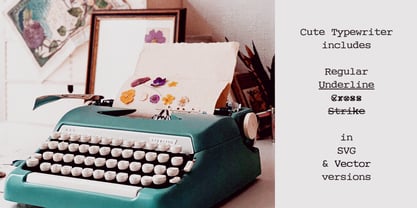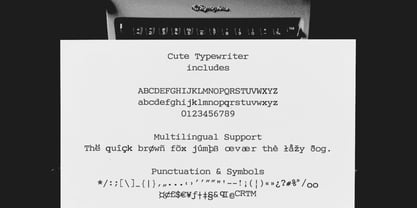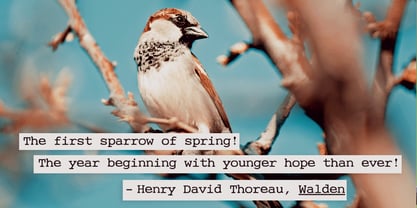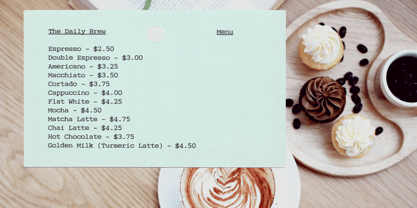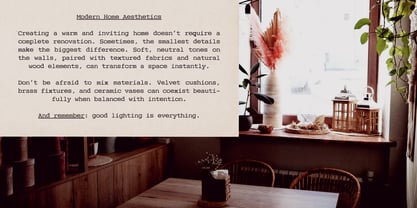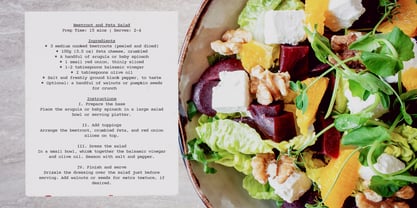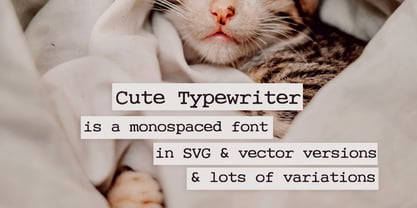
Cute Typewriter
Meet Cute Typewriter, a monospaced serif typewriter font that blends vintage charm with a modern edge. Perfectly legible at small sizes yet bold enough for display use, this font brings a retro, grungy, and effortlessly cool feel to your designs.
With four unique variations – Regular, Underline, Strike-through and Crossed-out – you can mix and match for dynamic, imperfect, and handcrafted aesthetics. Whether you're creating collages, posters, branding, zines, or distressed editorial layouts, Cute Typewriter adds the perfect touch of nostalgic imperfection.
• Serif Typewriter Style – A clean yet organic typewriter look
• Textured & Vintage Feel – Beautifully rough and authentic
• SVG & Vector Versions – Ultra-detailed texture or fully scalable options
• Four Styles – Regular (classic), Underline (emphasized), Cross and Strike (playful)
• Perfect for retro branding, grunge aesthetics, packaging, and editorial design